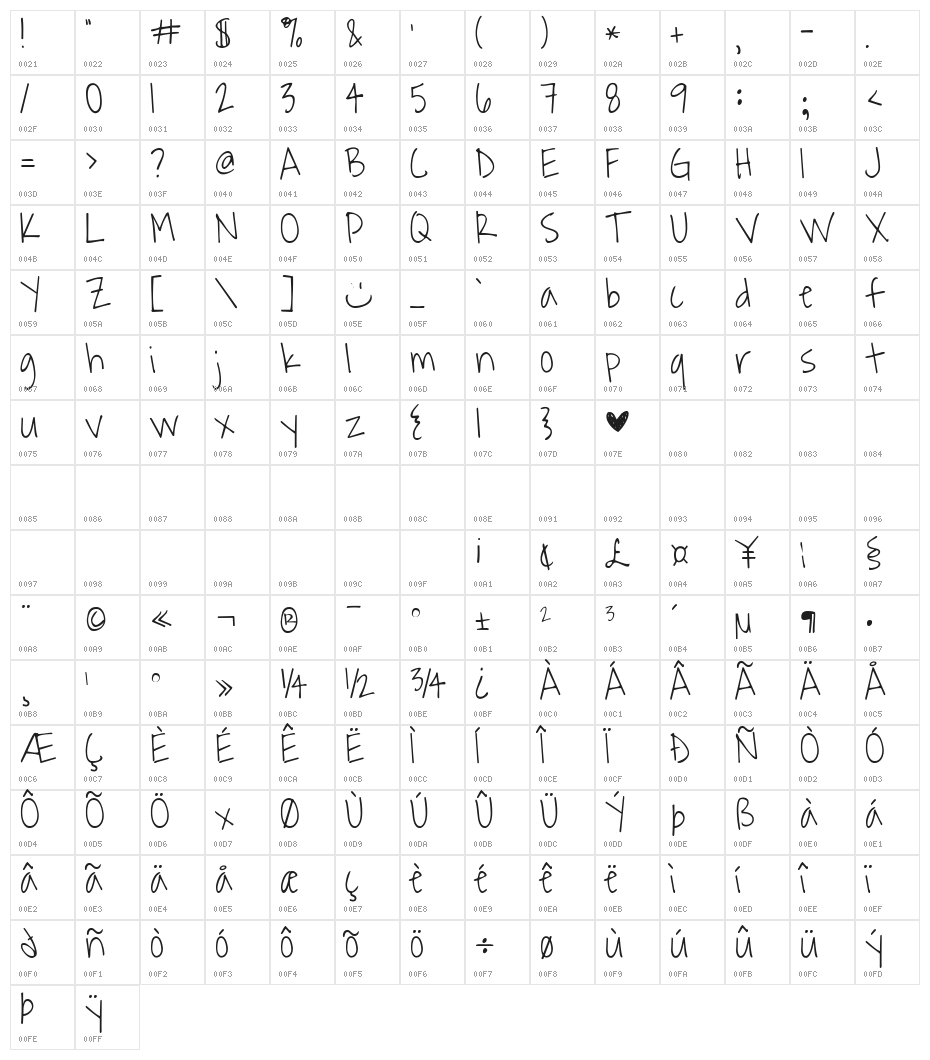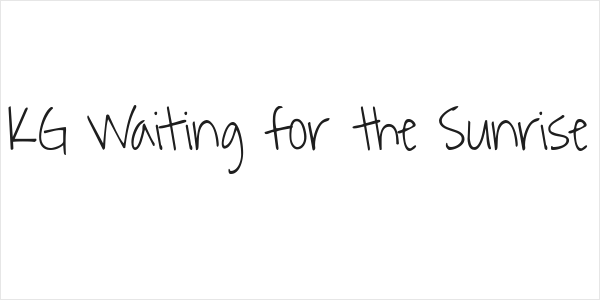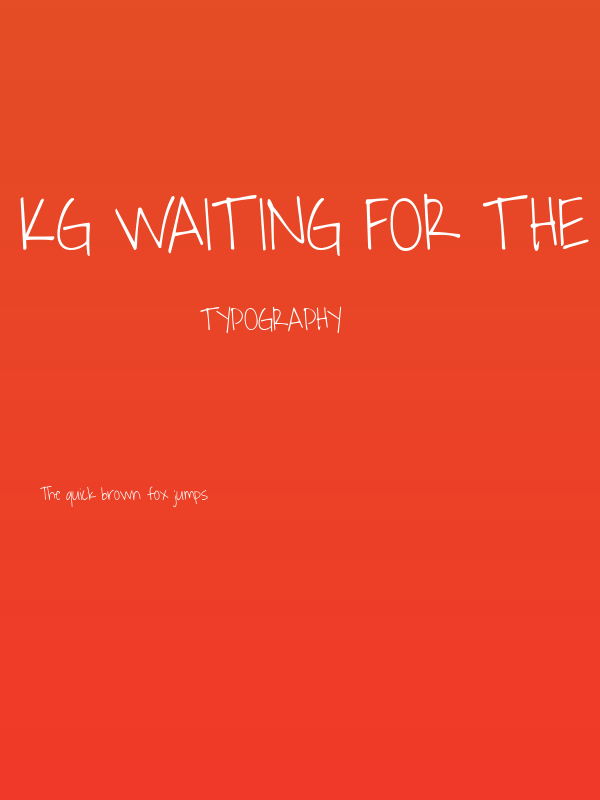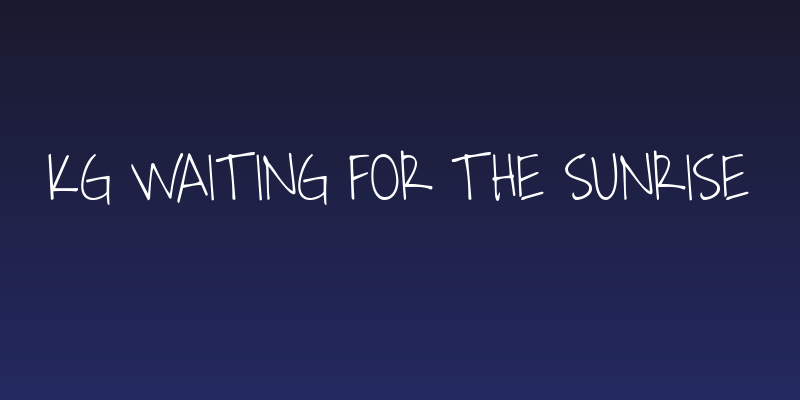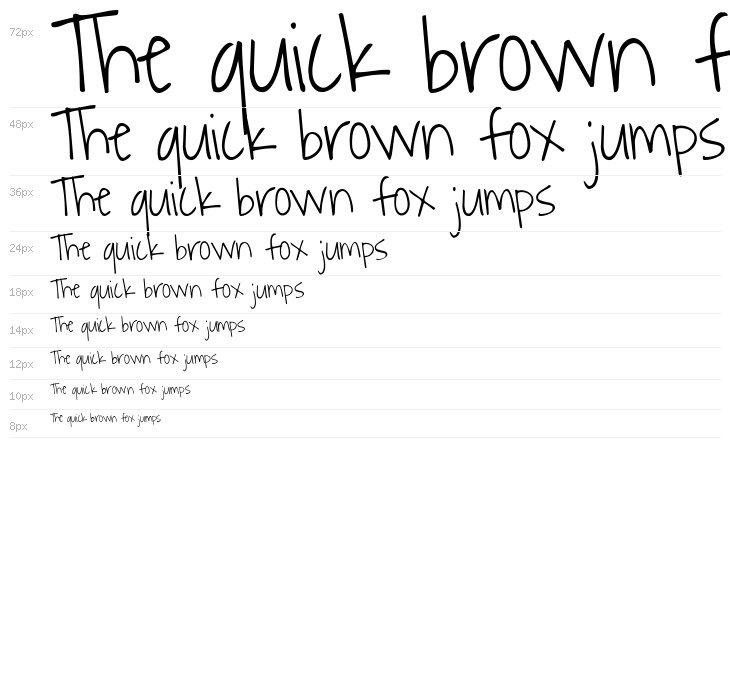
KG Waiting for the Sunrise Font
KG Waiting for the Sunrise Description
This font features a playful and casual handwritten style, characterized by its slightly uneven lines and organic flow. The letters are tall and narrow, giving it a unique and approachable appearance. The strokes are consistent in width, providing a cohesive look across all characters. The font includes both uppercase and lowercase letters, numbers, and a variety of special characters, making it versatile for different uses. Its informal style is reminiscent of personal notes or doodles, adding a touch of personality to any project.
| Use Case | Headlines, Informal text, Personal projects |
| Proposed Projects | Ideal for greeting cards, children's books, personal blogs, and informal branding. |